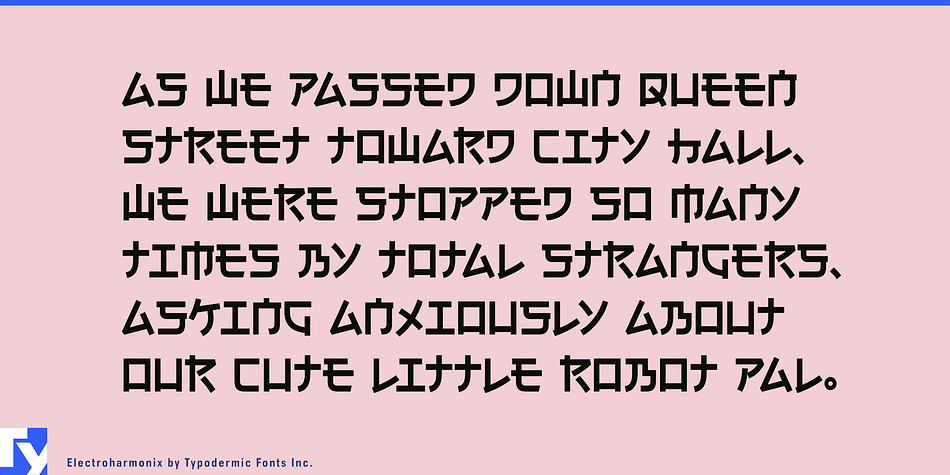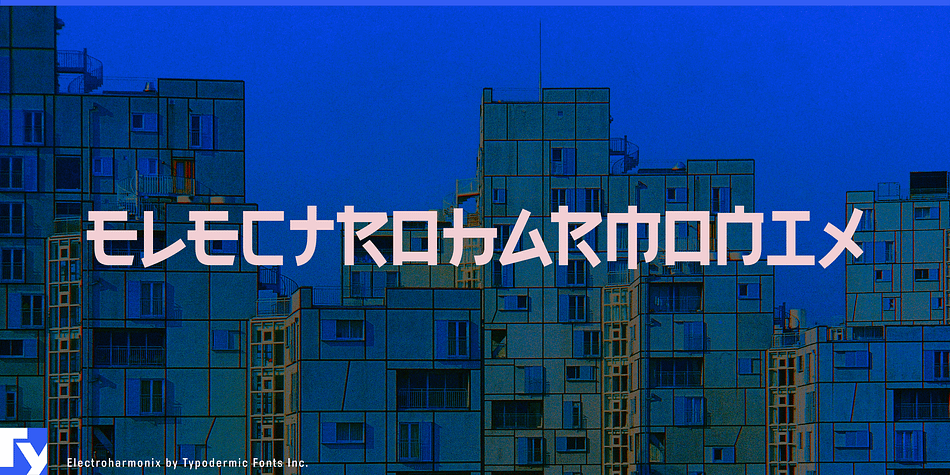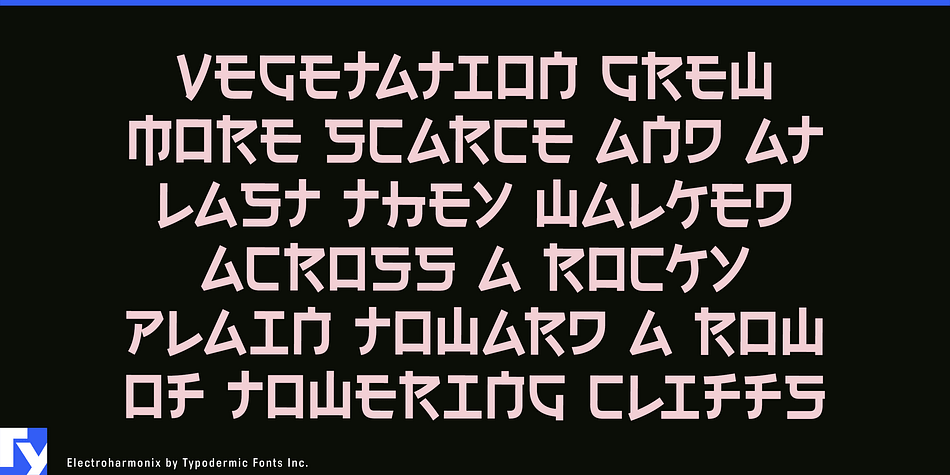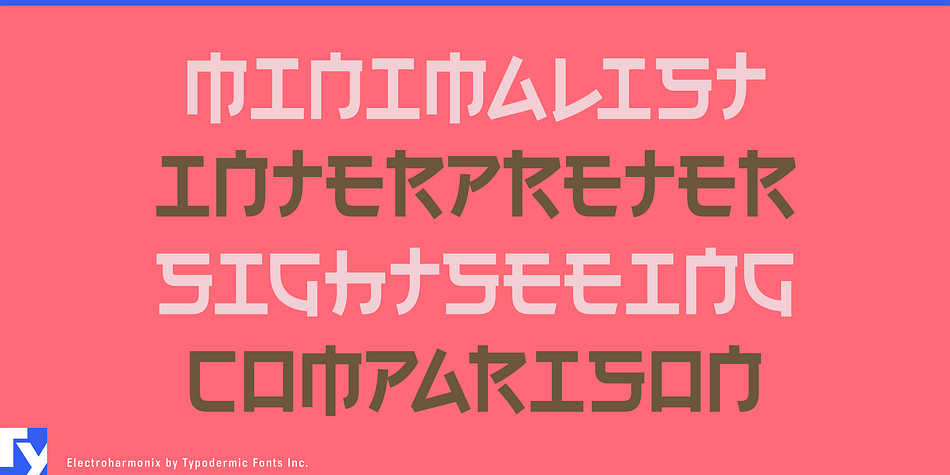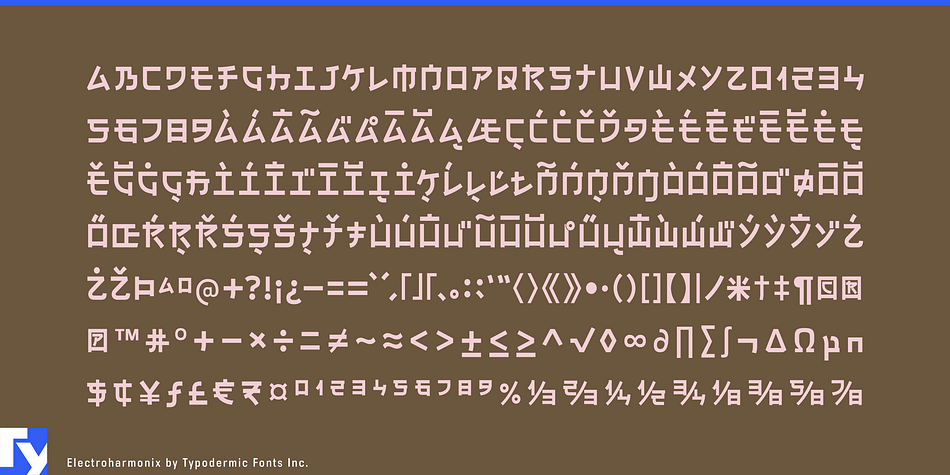
Electroharmonix is an exotic and novelty font family published by Typodermic Fonts Inc.
Electroharmonix is a pseudo-Japanese display typeface inspired by katakana, hiragana, and kanji. Please exercise caution when using this typeface. Most Japanese readers can’t read this typeface at all. It was featured on several Japanese variety shows, and guests struggled to read the word “Hello” due to their familiarity with katakana characters. In 2020, Electroharmonix was featured on a Japanese game show where the segment couldn’t be aired because none of the guests could read a single word. In a certain context, Electroharmonix’s can be construed as culturally insensitive and can contribute to casual racism. Research before using this font to ensure you’re not using it to perpetuate cultural stereotypes. Most Latin-based European writing systems are supported, including the following languages. Afaan Oromo, Afar, Afrikaans, Albanian, Alsatian, Aromanian, Aymara, Bashkir (Latin), Basque, Belarusian (Latin), Bemba, Bikol, Bosnian, Breton, Cape Verdean, Creole, Catalan, Cebuano, Chamorro, Chavacano, Chichewa, Crimean Tatar (Latin), Croatian, Czech, Danish, Dawan, Dholuo, Dutch, English, Estonian, Faroese, Fijian, Filipino, Finnish, French, Frisian, Friulian, Gagauz (Latin), Galician, Ganda, Genoese, German, Greenlandic, Guadeloupean Creole, Haitian Creole, Hawaiian, Hiligaynon, Hungarian, Icelandic, Ilocano, Indonesian, Irish, Italian, Jamaican, Kaqchikel, Karakalpak (Latin), Kashubian, Kikongo, Kinyarwanda, Kirundi, Kurdish (Latin), Latvian, Lithuanian, Lombard, Low Saxon, Luxembourgish, Maasai, Makhuwa, Malay, Maltese, Māori, Moldovan, Montenegrin, Ndebele, Neapolitan, Norwegian, Novial, Occitan, Ossetian (Latin), Papiamento, Piedmontese, Polish, Portuguese, Quechua, Rarotongan, Romanian, Romansh, Sami, Sango, Saramaccan, Sardinian, Scottish Gaelic, Serbian (Latin), Shona, Sicilian, Silesian, Slovak, Slovenian, Somali, Sorbian, Sotho, Spanish, Swahili, Swazi, Swedish, Tagalog, Tahitian, Tetum, Tongan, Tshiluba, Tsonga, Tswana, Tumbuka, Turkish, Turkmen (Latin), Tuvaluan, Uzbek (Latin), Venetian, Vepsian, Võro, Walloon, Waray-Waray, Wayuu, Welsh, Wolof, Xhosa, Yapese, Zapotec Zulu and Zuni.